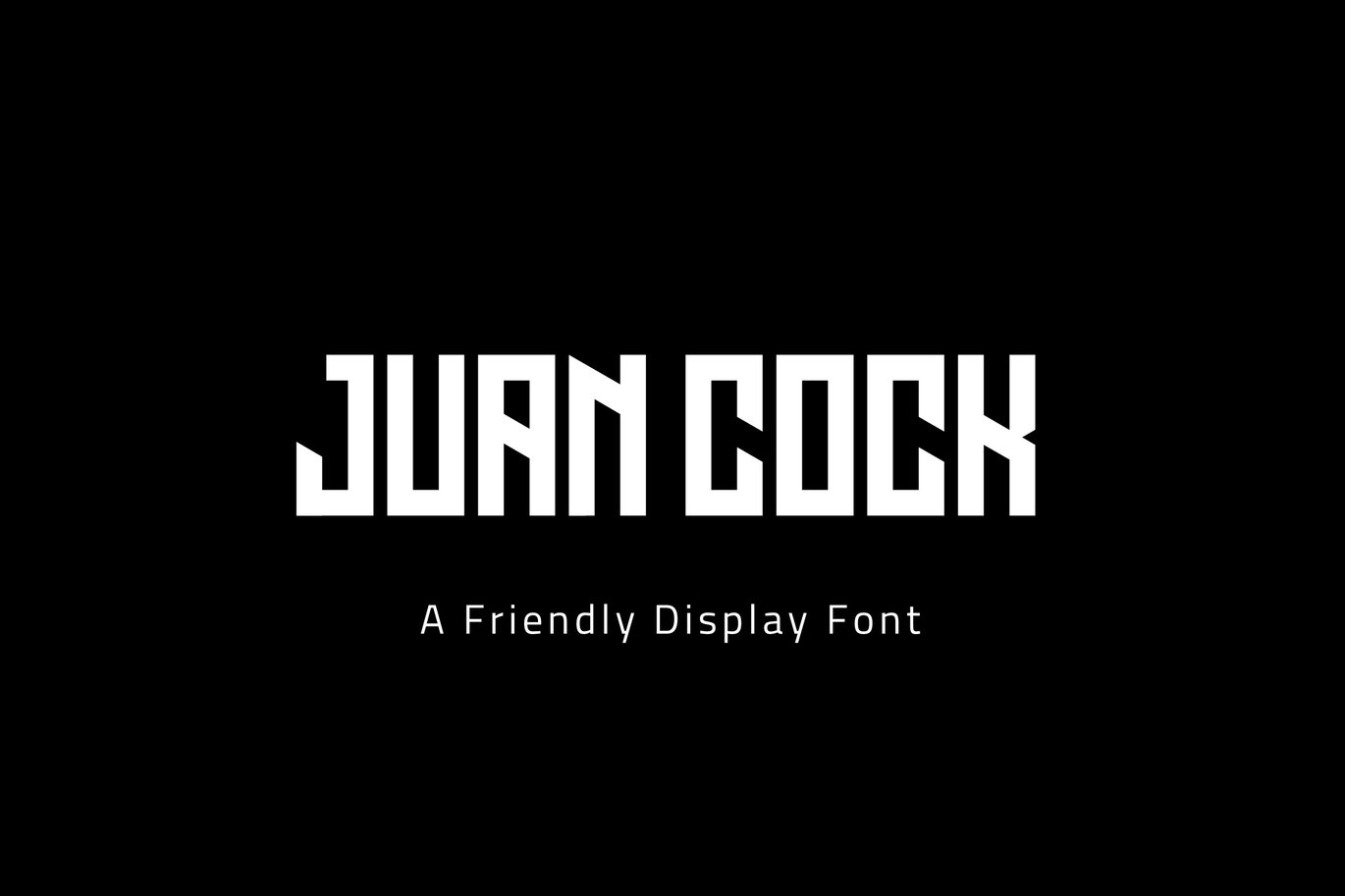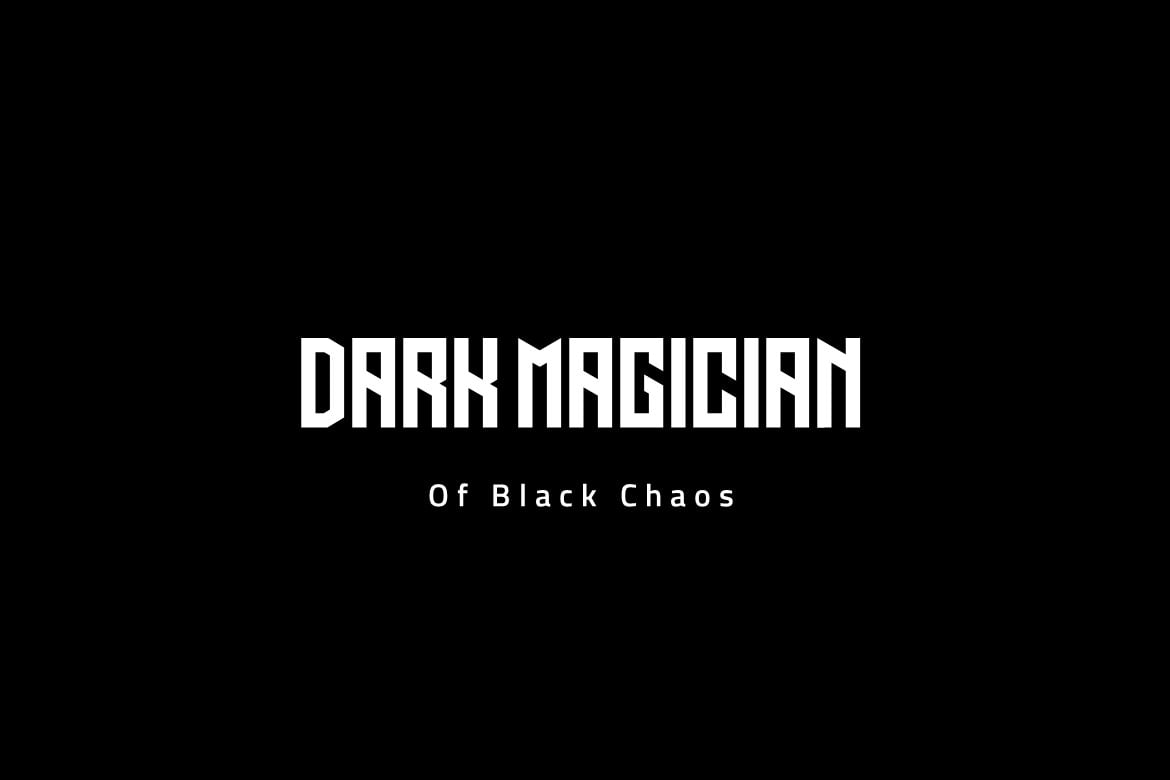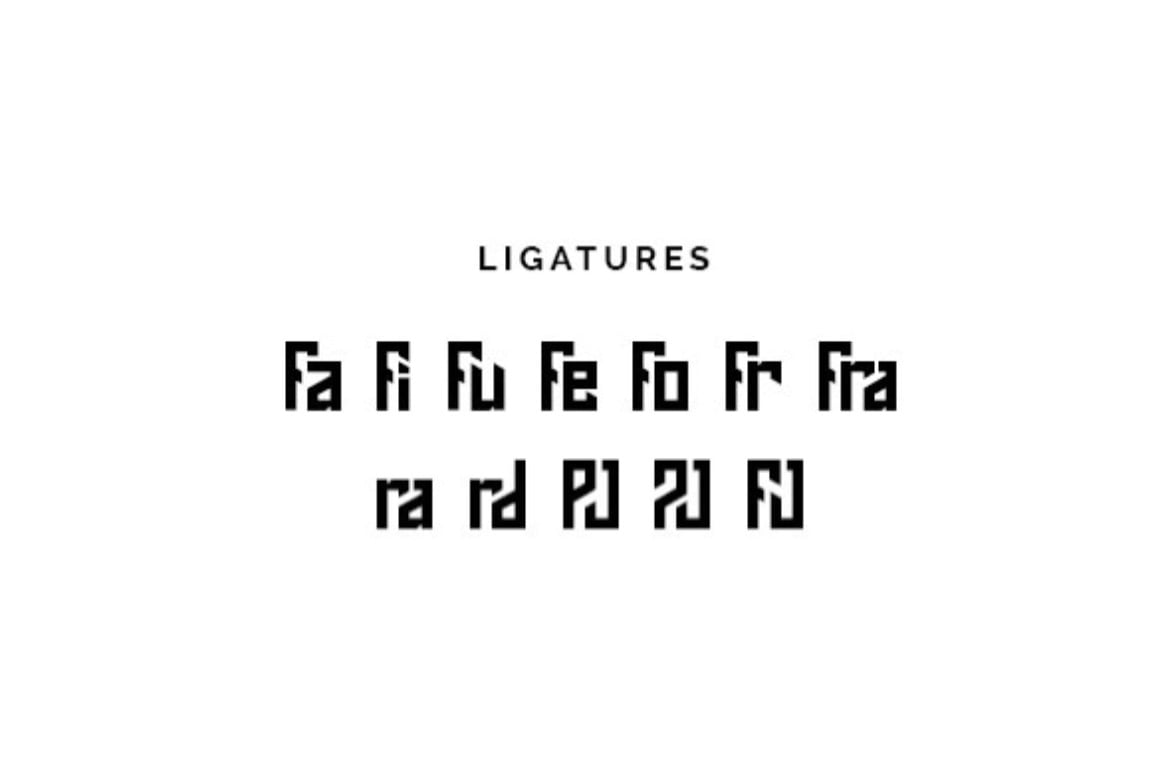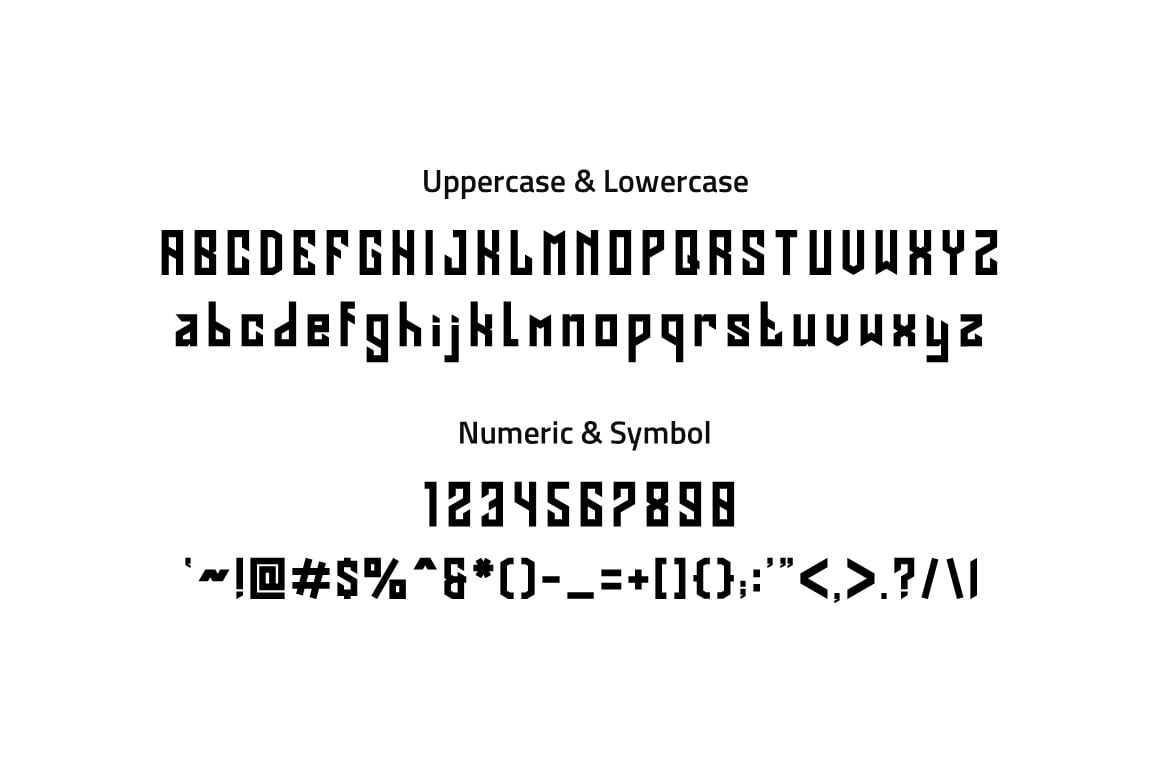
Juan Cock Font
Introducing “Juan Cock Font”
This font can be used for any variety purpose, such as: Logo, Esport Logo, Band Logo, Championship Logo, Military Logo and Clothing